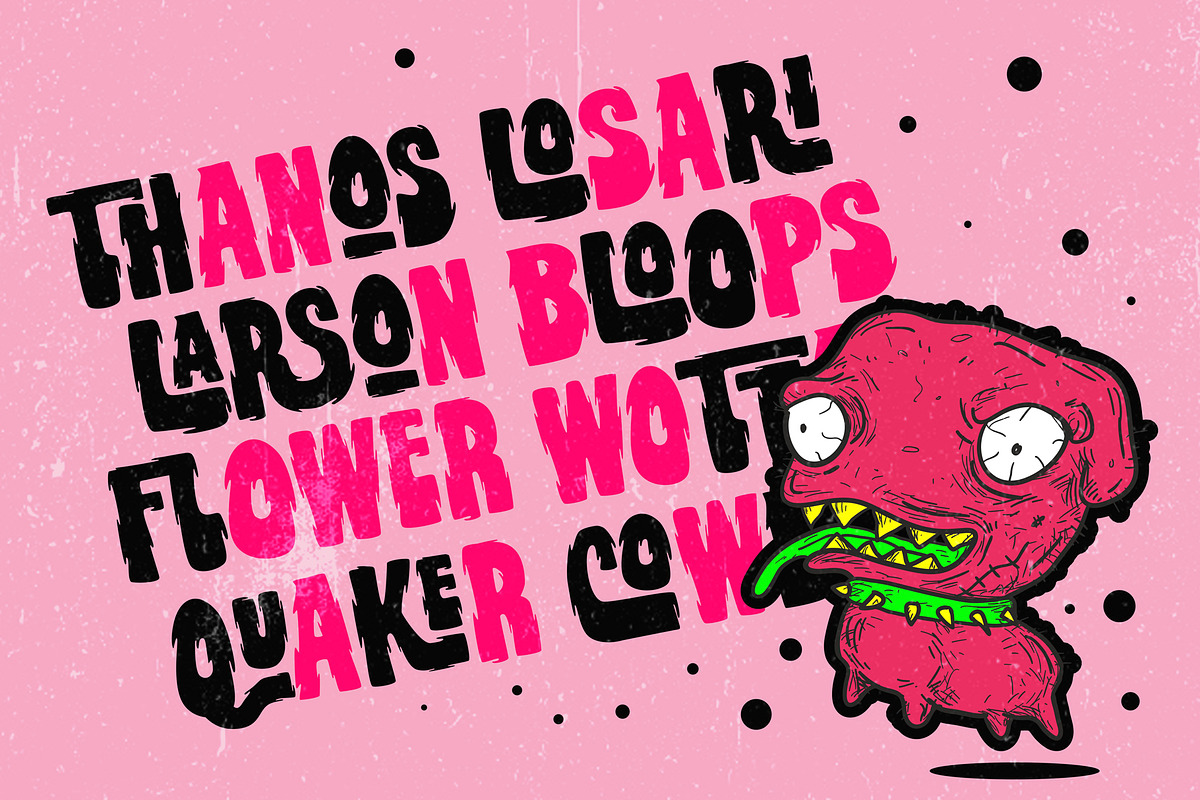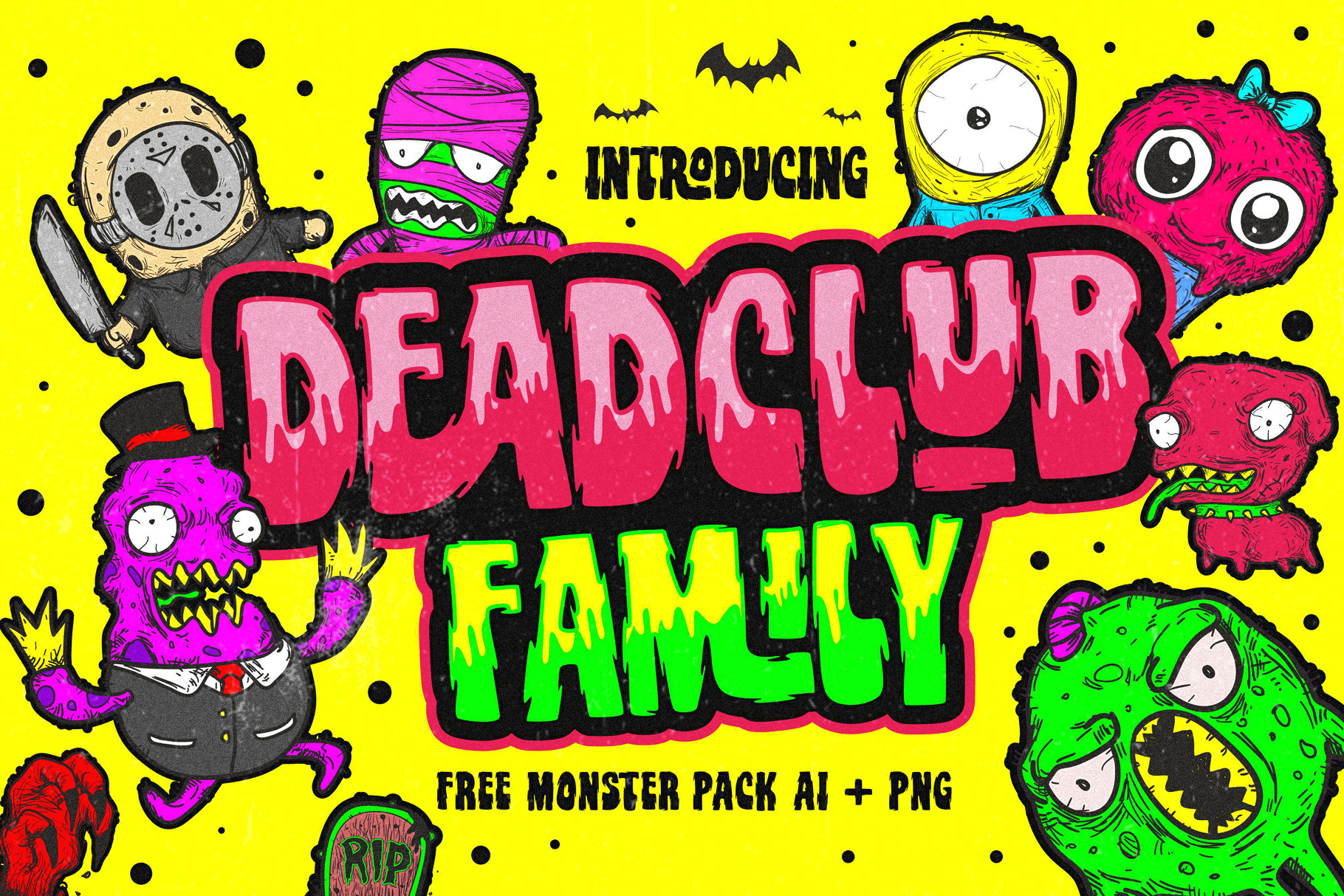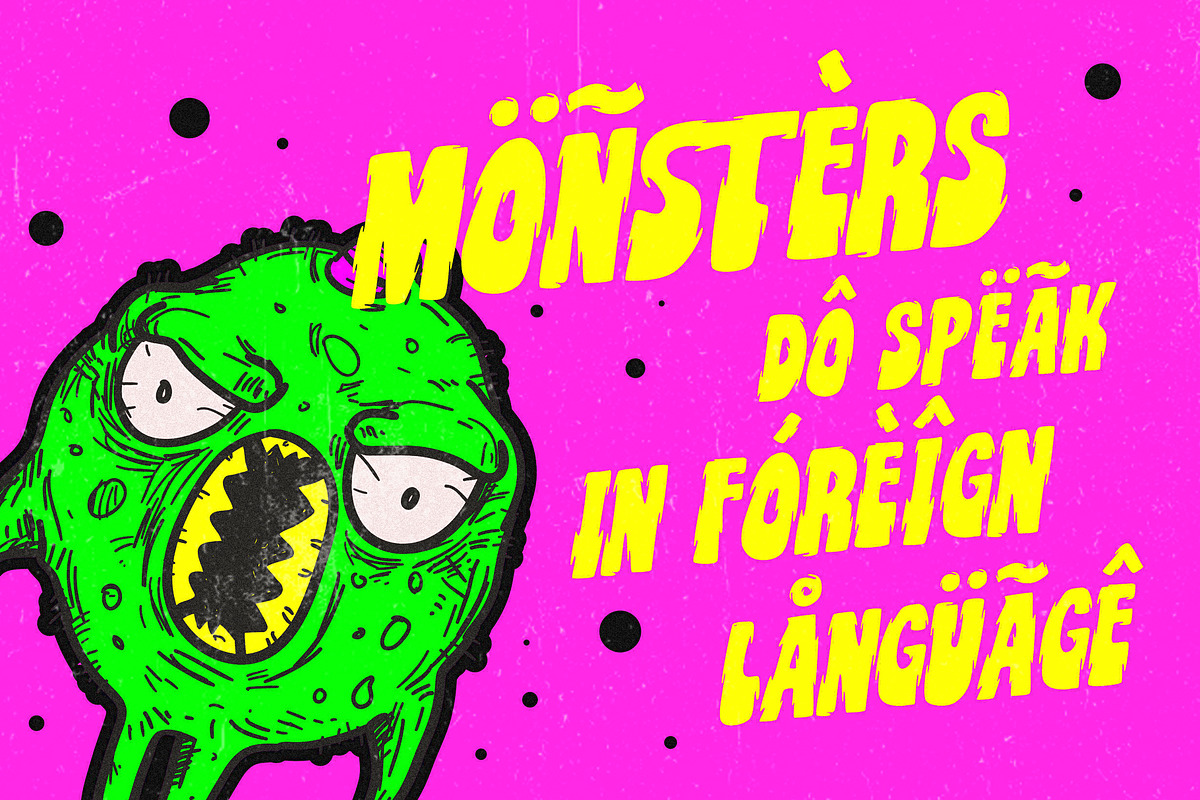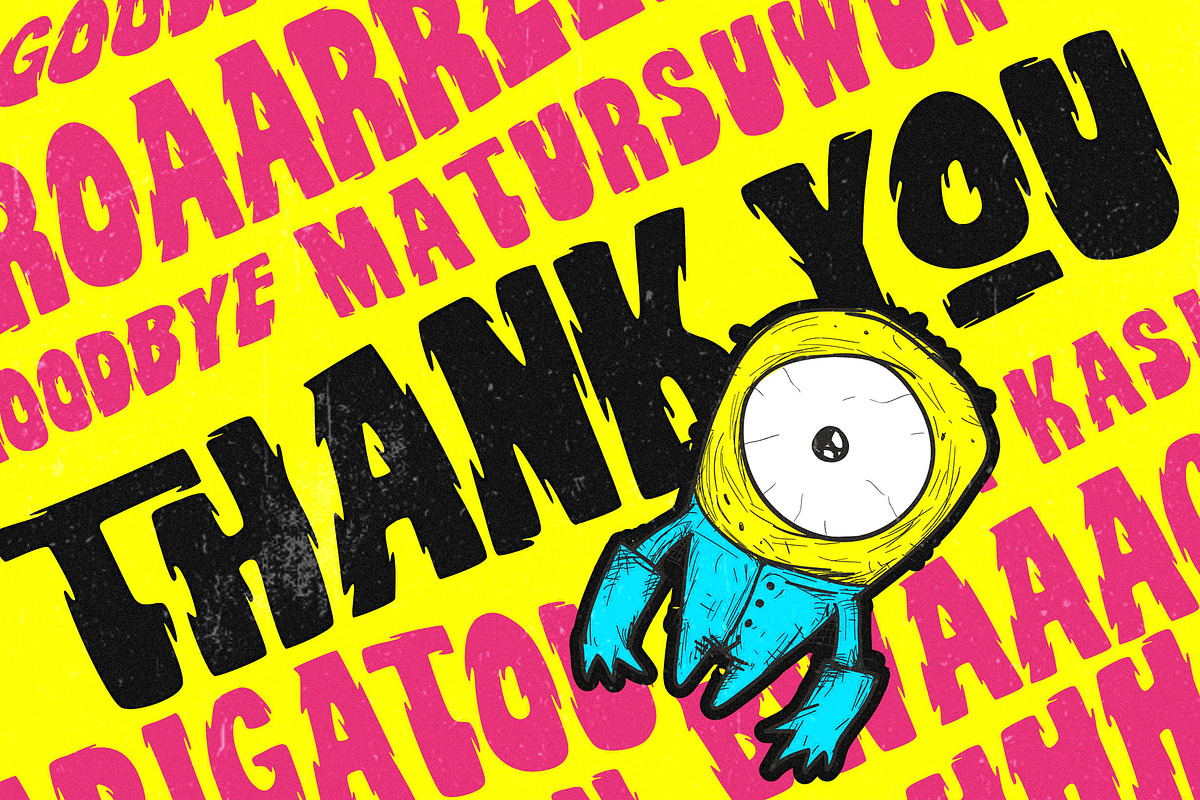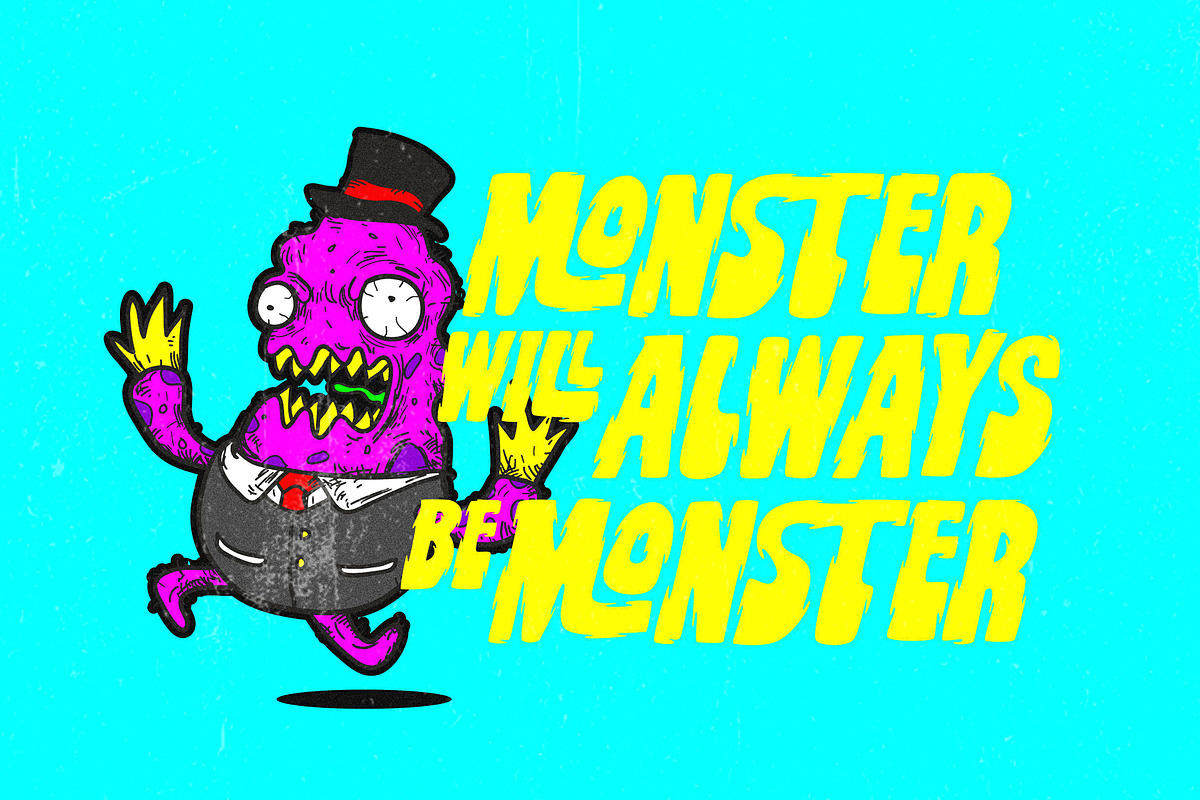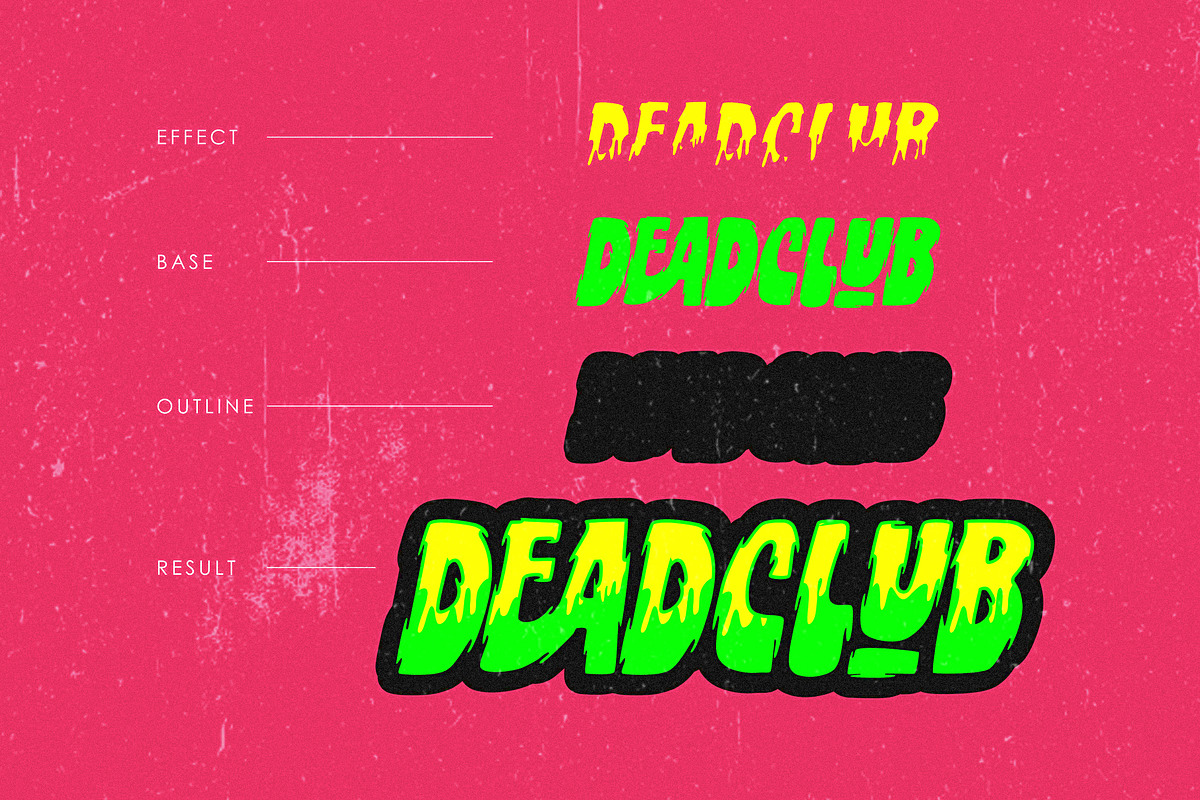
Deadclub Family Font + Bonus
Deadclub Familly
Vintage, horror, also can be fun too.
Deadclub is perfect for any horror theme poster, flyer, logo, T shirt etc.